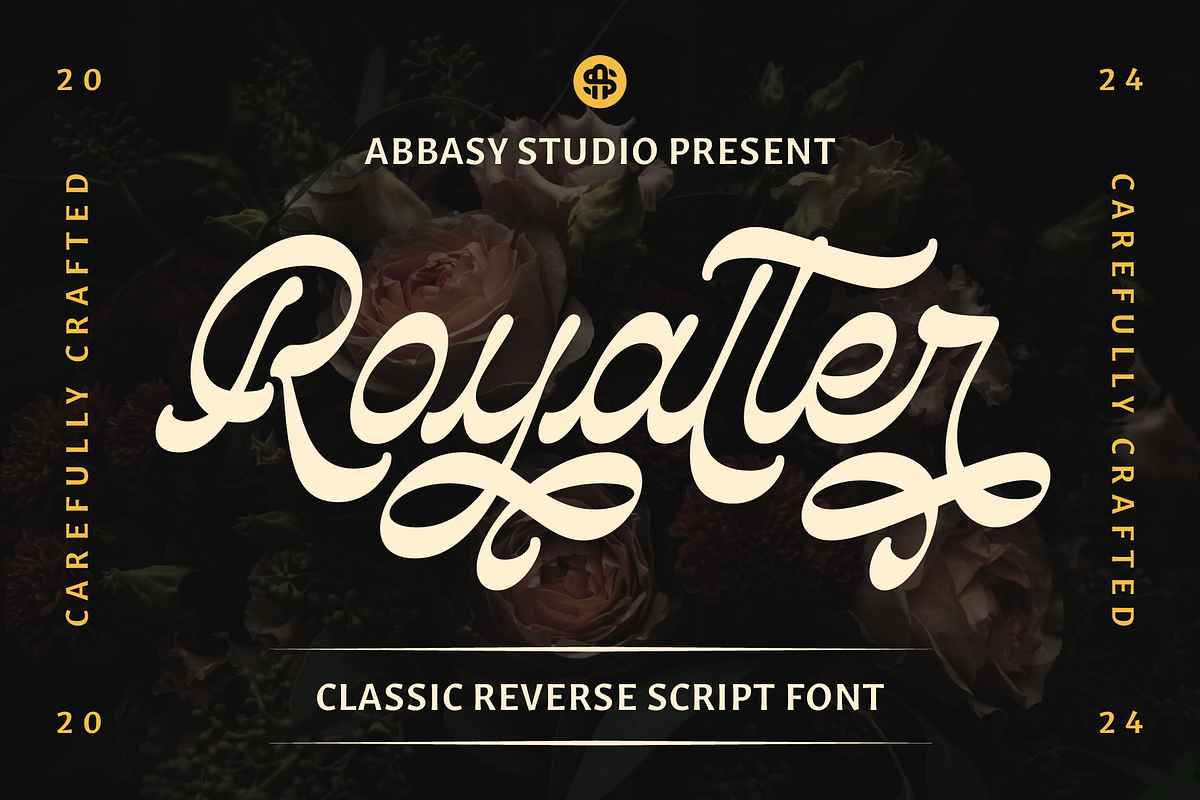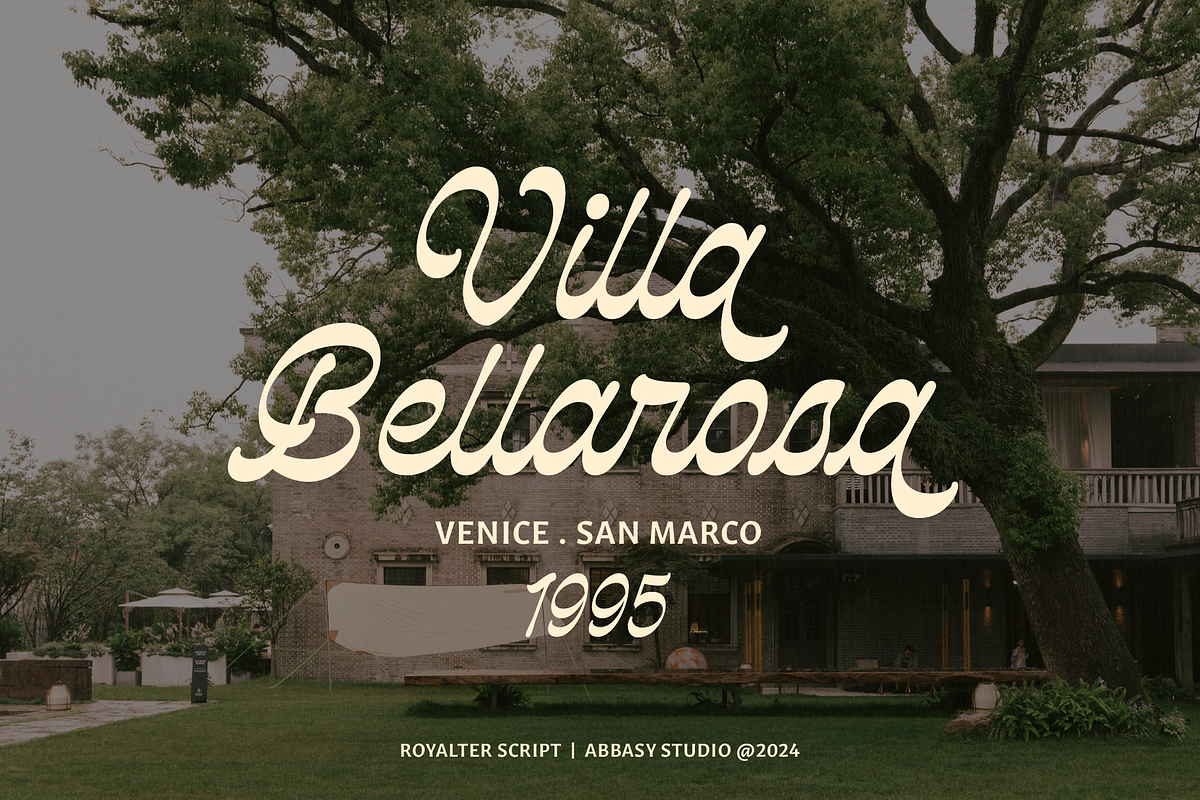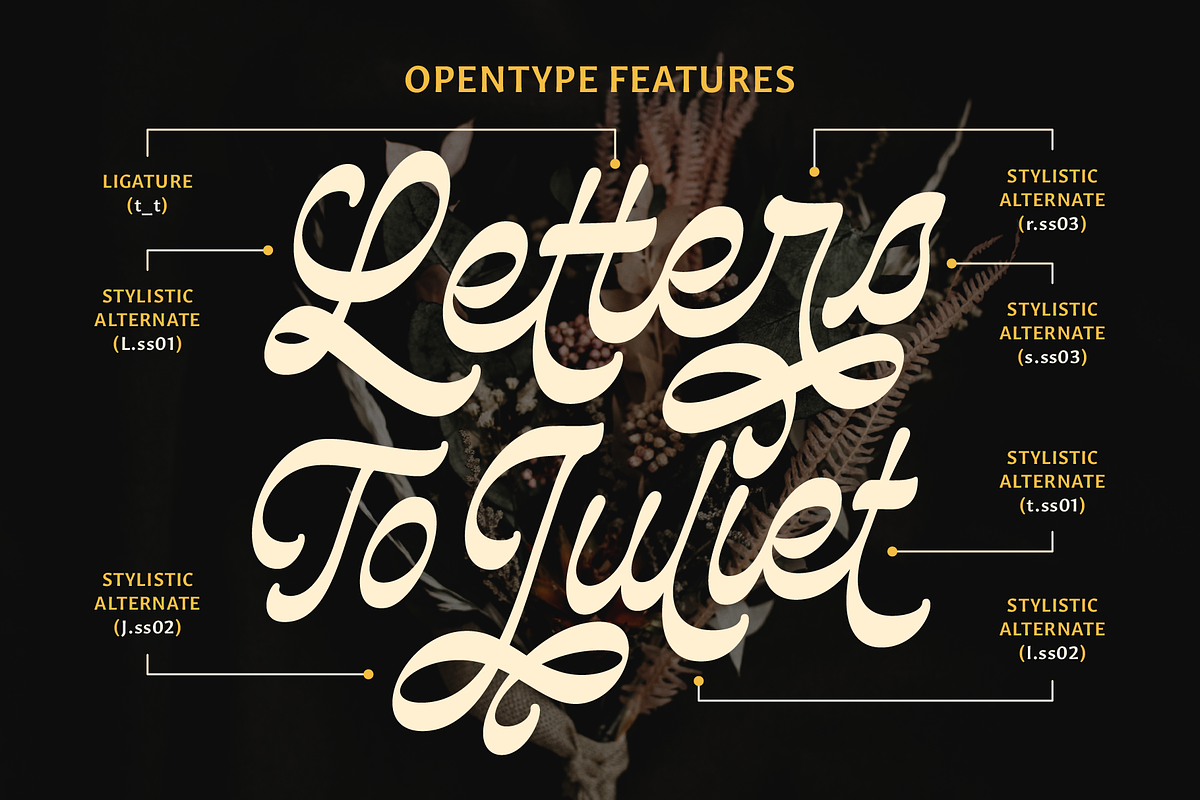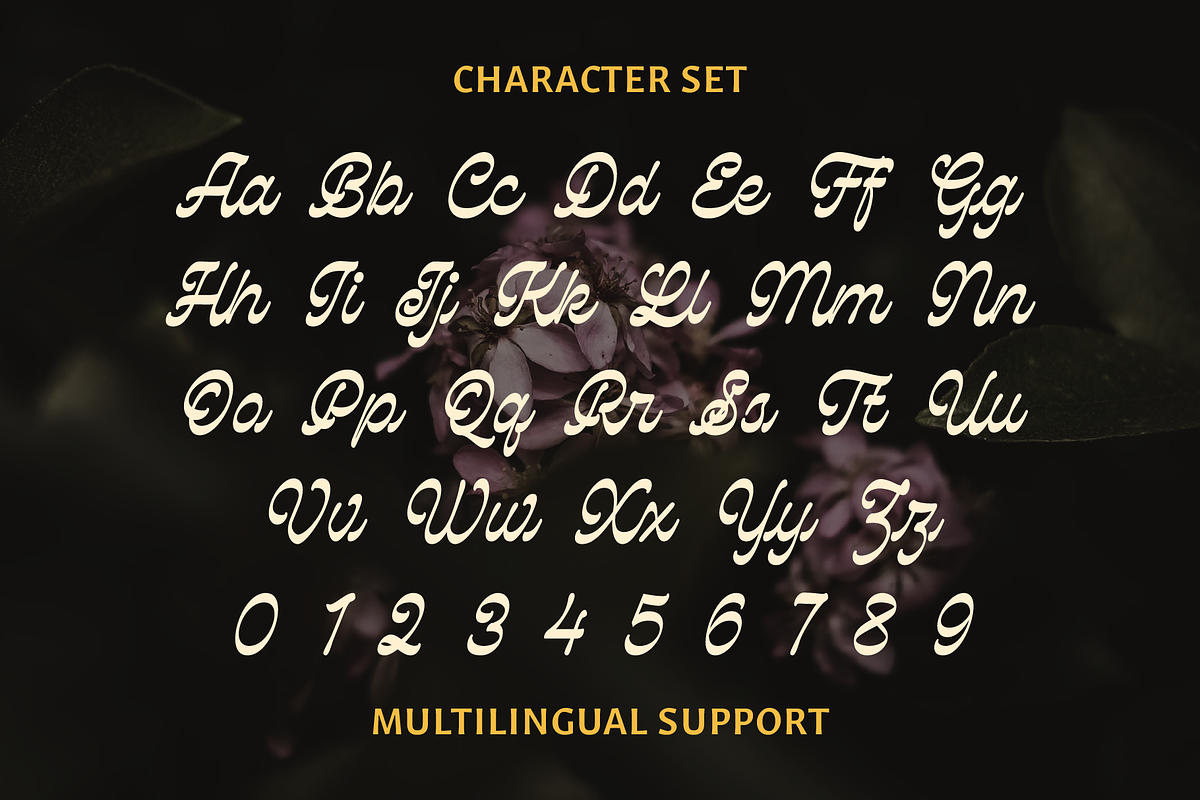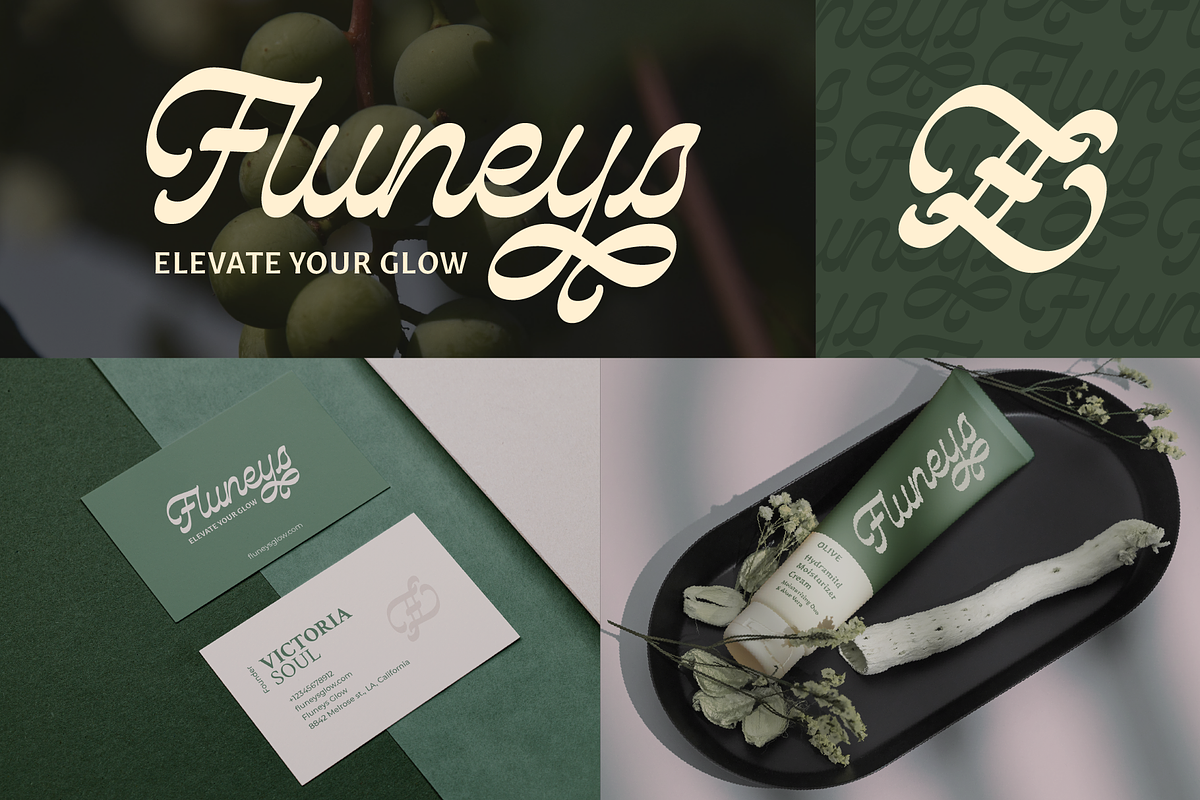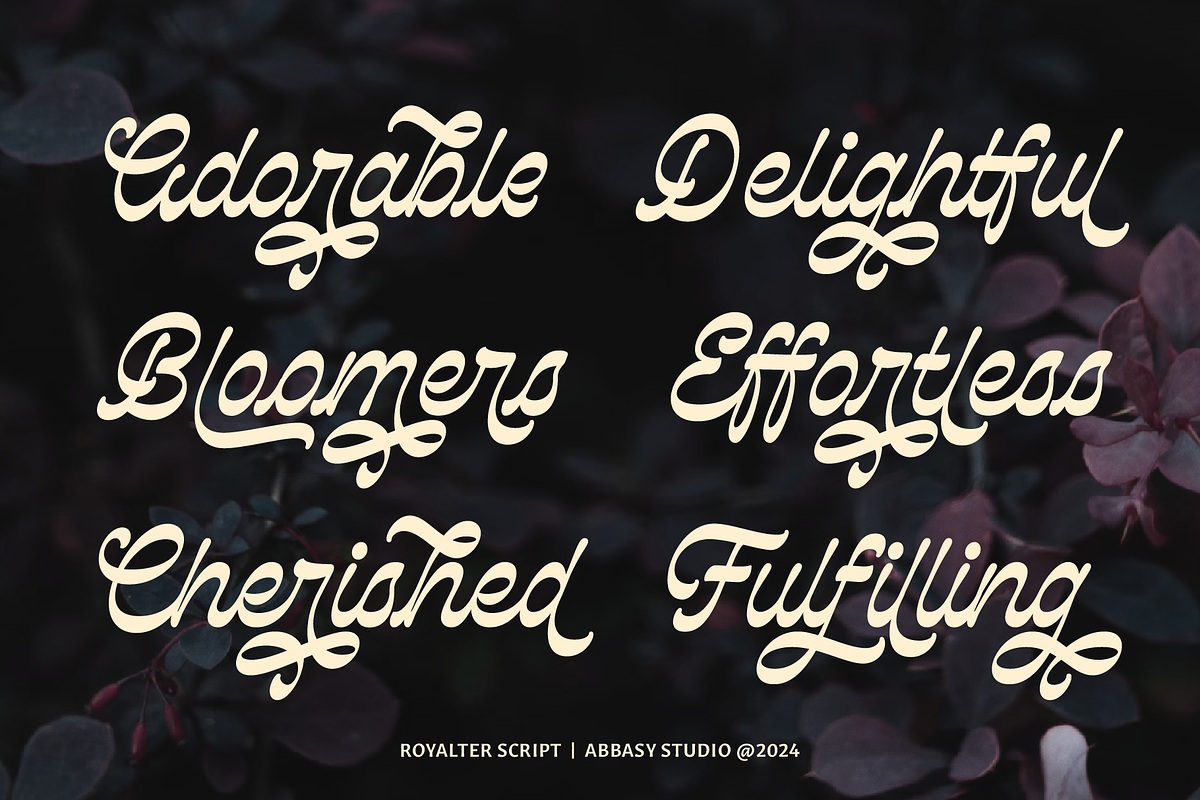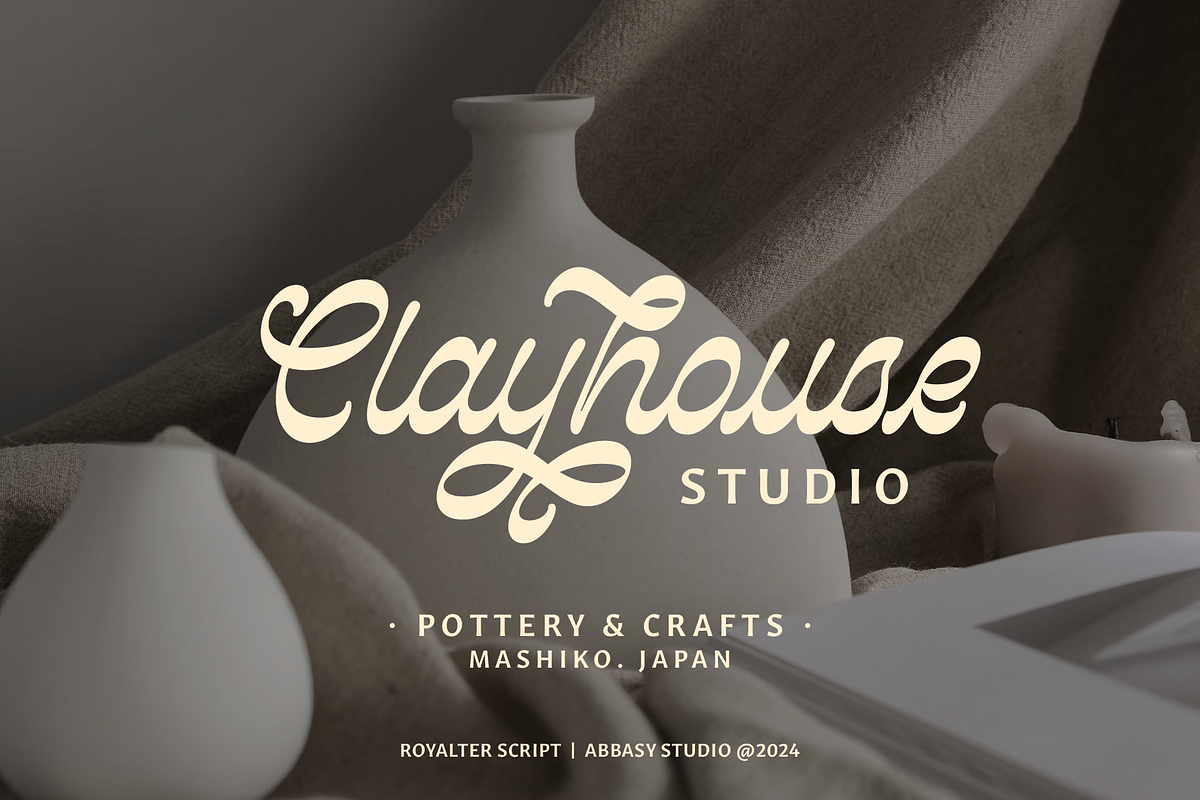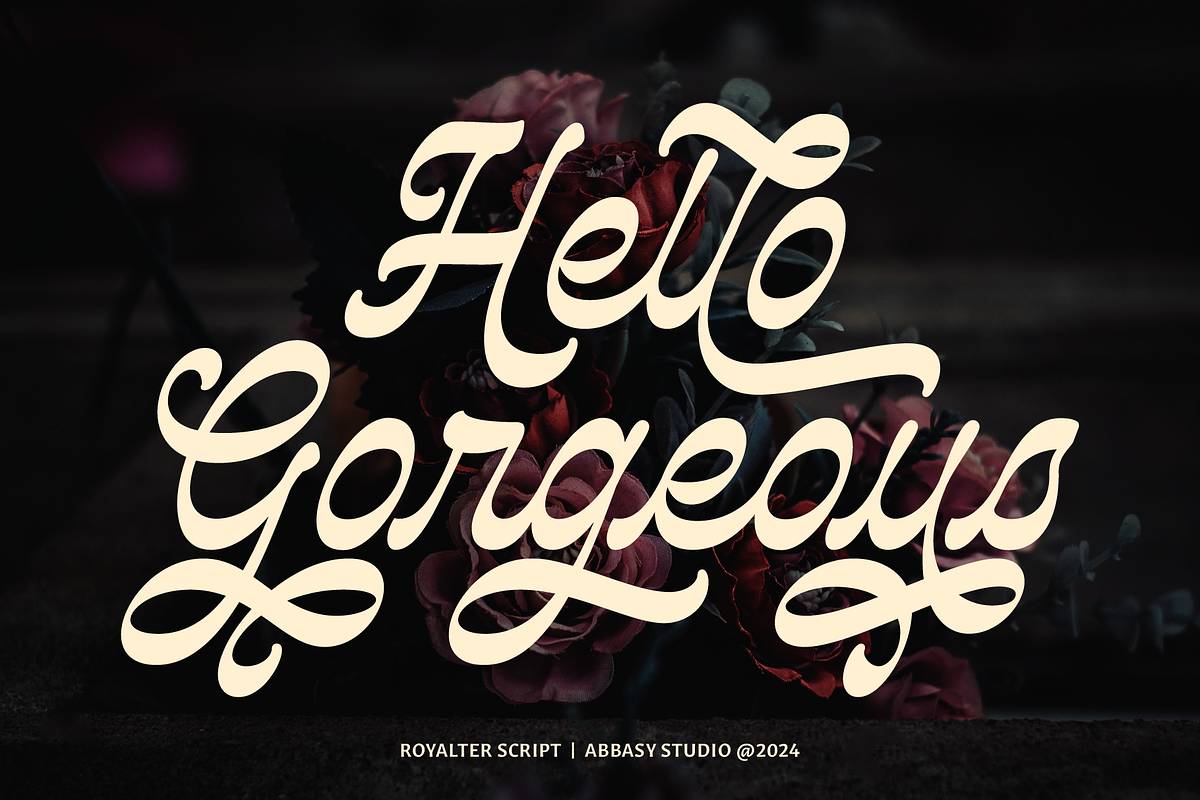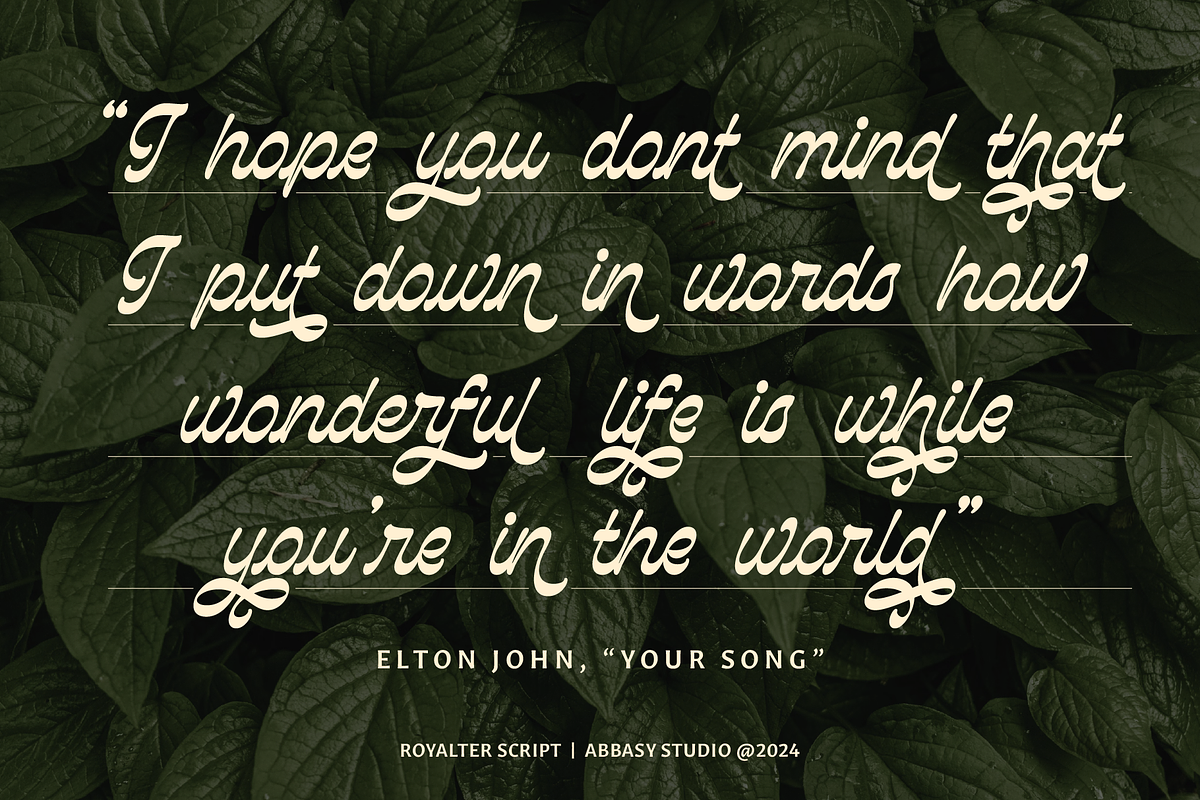
Royalter Script
Introducing, Royalter Script - a unique classic script with reverse contrast. Royalter Script inspired by classic handwriting in book. The unusual reverse contrast make this typeface one of a kind. There are more than 500+ glyphs in this font including Multilanguage Support. OpenType features with Stylistic Alternates, Contextual Alternate, ligatures in some characters that allows you to mix and match pairs of letters to fit your design
Royalter Script is perfectly suitable for made to be applied especially in logo, and the other various formal forms such as invitations, labels, logos, magazines, books, greeting / wedding cards, packaging, fashion, make up, stationery, novels, labels or any type of advertising purpose.